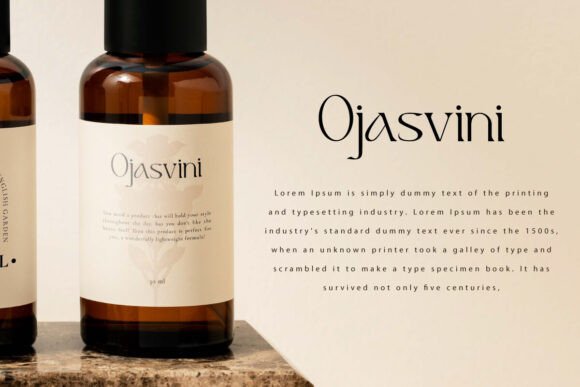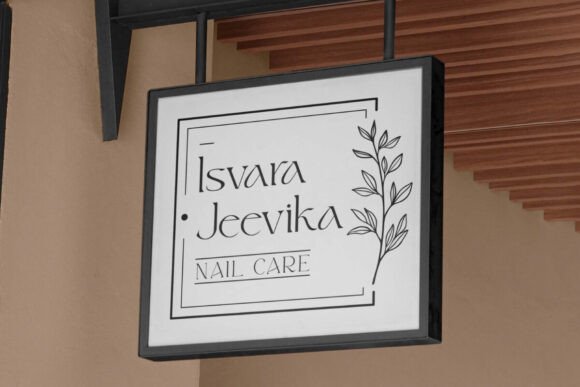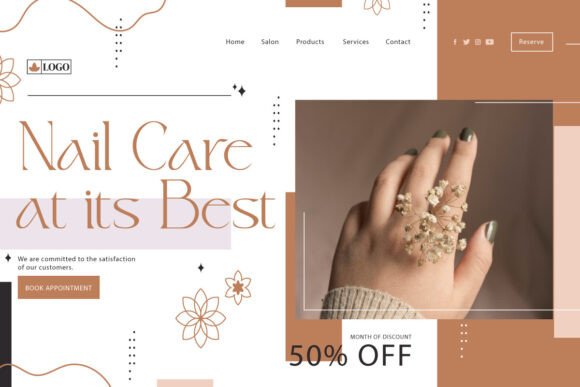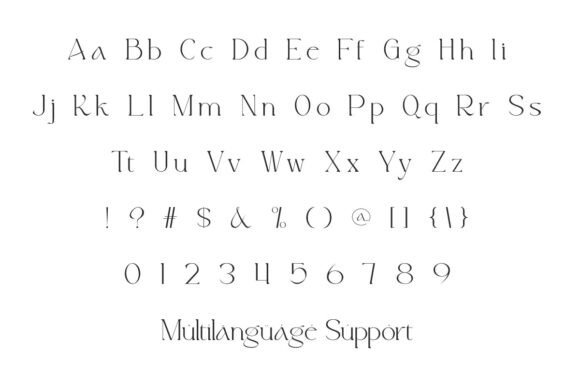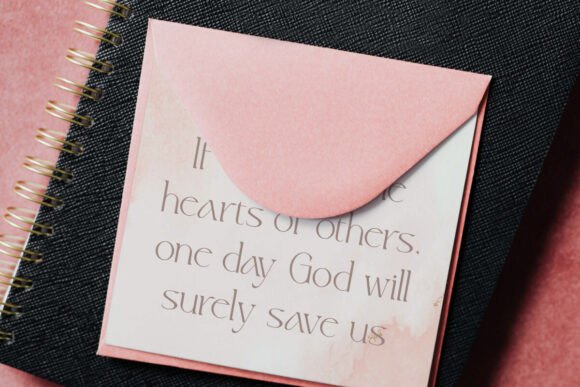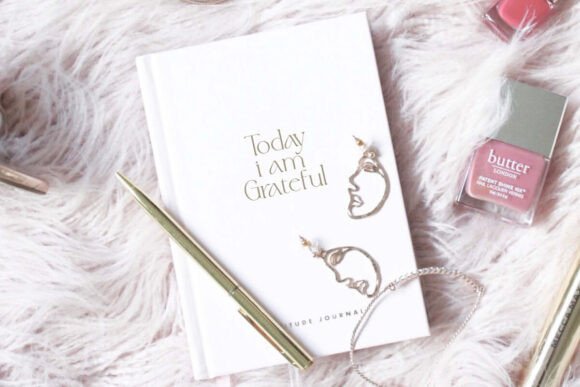
Unleash the Sophistication: Discover the Cedaredge Font
Have you ever been stuck on a design project, searching for the perfect font to elevate your creation? I’m sure many of us have been there – scrolling through font libraries, trying to find that one special something that will take our design to the next level. For designers, the right font can make all the difference in capturing the essence of a brand or message.
Enter the Cedaredge Font, a stunning serif display font designed to add a touch of elegance to any design. With its unique fancy characters and sleek shape, this font is perfect for custom designs, gift boxes, invitations, and more. Whether you’re a seasoned designer or just starting out, the Cedaredge Font is an invaluable tool to have in your arsenal.
Cedaredge Font Key Features
- Font Family: Cedaredge Font is a serif font with a classic and elegant feel.
- Size: The font comes in a range of sizes, from 12-point to 72-point, making it suitable for various design applications.
- Resolution: Optimized for high-resolution displays, including Retina and 4K screens, with a resolution of up to 300 DPI.
- Unique Characteristics: Cedaredge Font features a unique blend of modern and traditional design elements, including subtle flair on the terminals and a refined x-height.
- Language Support: Supports a wide range of languages, including Latin, Greek, Cyrillic, and many non-Latin scripts.
Cedaredge Font Review
Overall, I found the Cedaredge Font to be a visually appealing and elegant choice for designers. ✨ Its unique blend of classic and modern elements makes it perfect for a wide range of projects, from branding and advertising to editorial and publishing.
- ✨ Unique and elegant design that sets it apart from more common fonts.
- ✨ Excellent for use in headings and titles, where its classic feel really shines.
- ✨ Works well in both digital and print formats.
- ⚠️ Limited font sizes may not render as intended in smaller sizes.
- ⚠️ May not be as readable in long blocks of text, due to its elegant but slightly condensed design.
I would recommend the Cedaredge Font for designers who want to add a touch of sophistication and elegance to their projects. While it may have some limitations, its unique design and versatility make it a great choice for a wide range of applications. With some careful consideration of font sizes and usage, I think Cedaredge could be a fantastic addition to any designer’s toolkit.
The Cedaredge font is ideal for use in branding, advertising, and editorial projects. Use it to create modern, elegant typography that adds a touch of sophistication to your designs. Experiment with different font sizes and styles to create visual interest and emphasis.
What is the recommended font size for Cedaredge?
The recommended font size for Cedaredge varies depending on the intended use and viewing distance. As a general guideline, use font sizes between 12pt and 24pt for body text, and 36pt or larger for headings. This will ensure optimal legibility and visual impact.